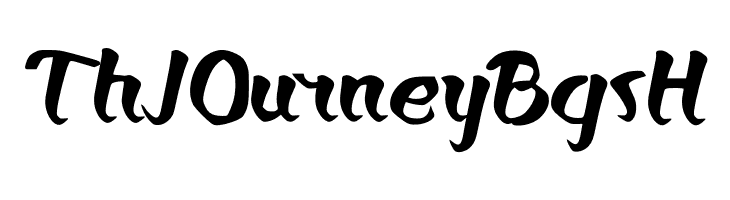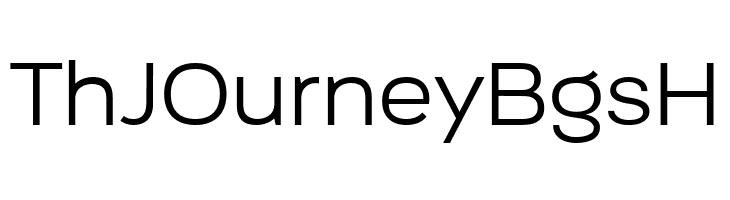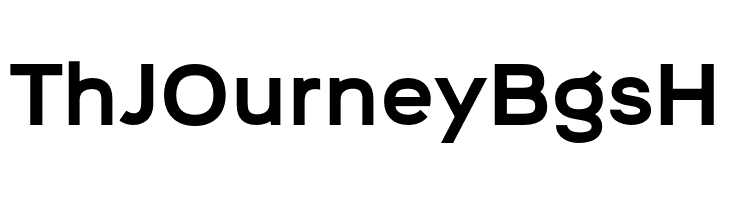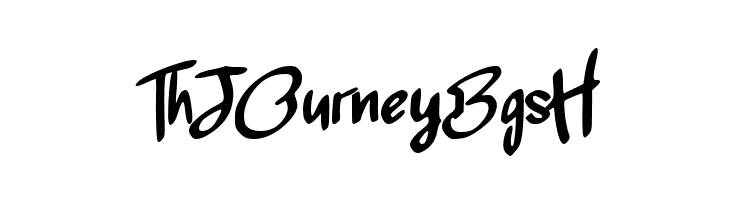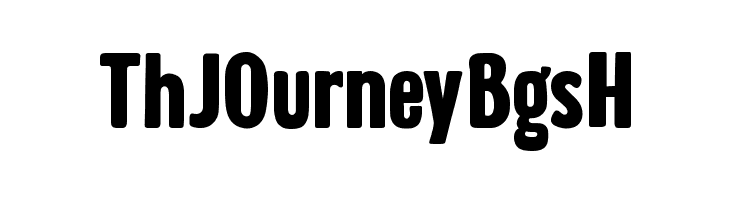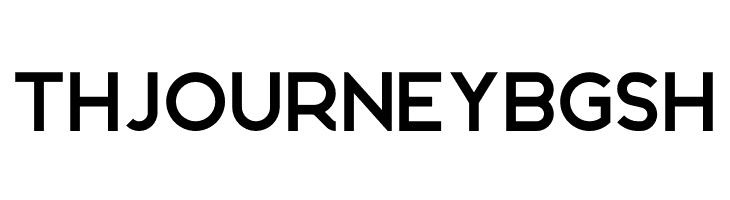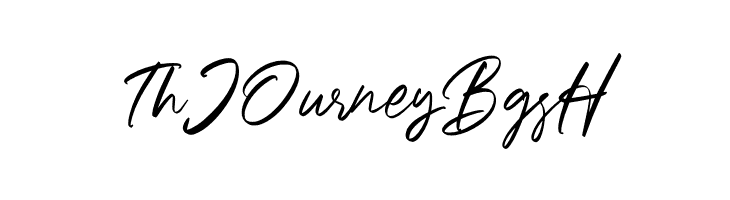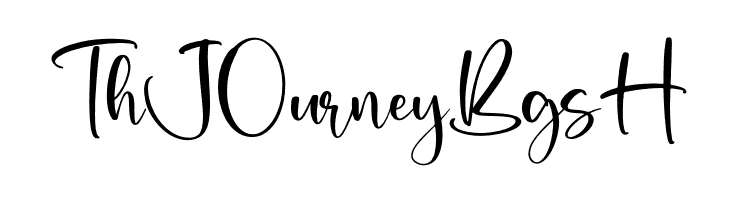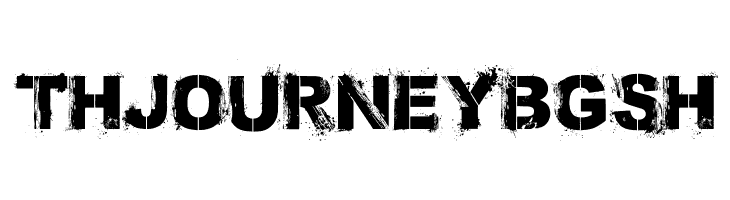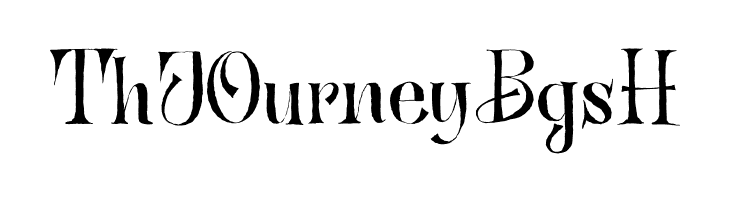
A bold, calligraphic font with dynamic curves and a modern twist.
A bold, modern sans-serif font with geometric influences and clear readability.
A fluid and elegant script font with a handwritten calligraphic style.
A bold, rounded font with a strong, playful presence.
A bold, handwritten script font with dynamic and fluid strokes.
Casual, modern handwritten script with playful loops.
A bold, modern sans-serif font with geometric influences and uniform stroke width.
A bold, distressed font with a gritty, urban street art style.